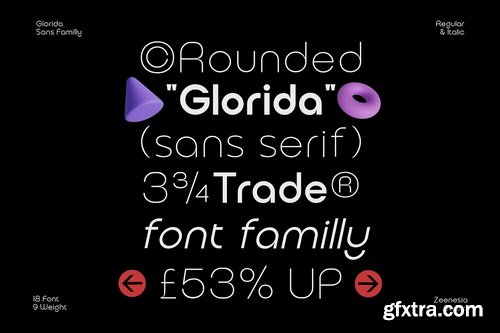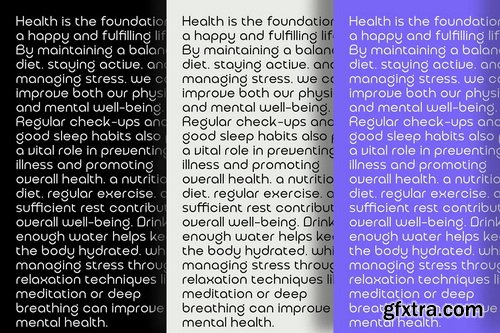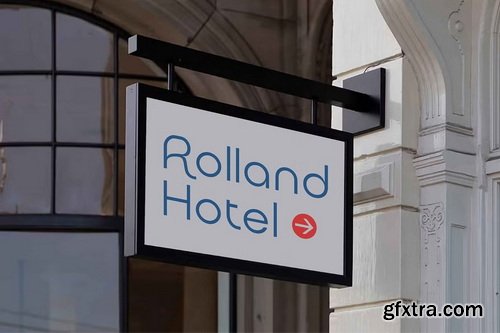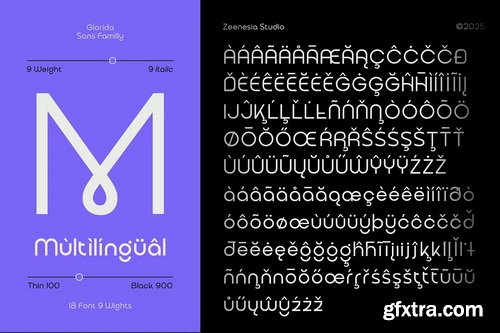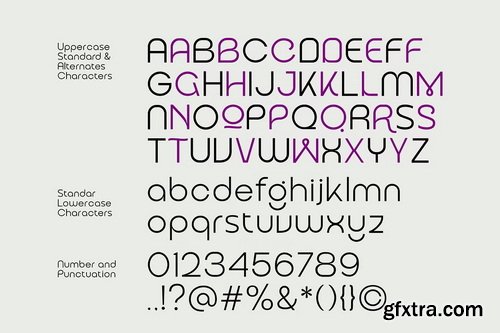
Glorida – Elegant Smooth Rounded Typeface Introducing Glorida, a refined and versatile typeface designed to bring elegance and warmth to your projects. With 18 styles, including 8 weights (from Thin to Black) and their matching 8 italics, Glorida offers a comprehensive typographic solution for various creative needs. Glorida stands out with its smooth curves, soft rounded edges, and balanced proportions, making it a perfect choice for branding, editorial design, web interfaces, and more. Its gentle yet confident appearance ensures readability while adding a touch of sophistication. Perfect for branding, editorial, UI/UX, and more